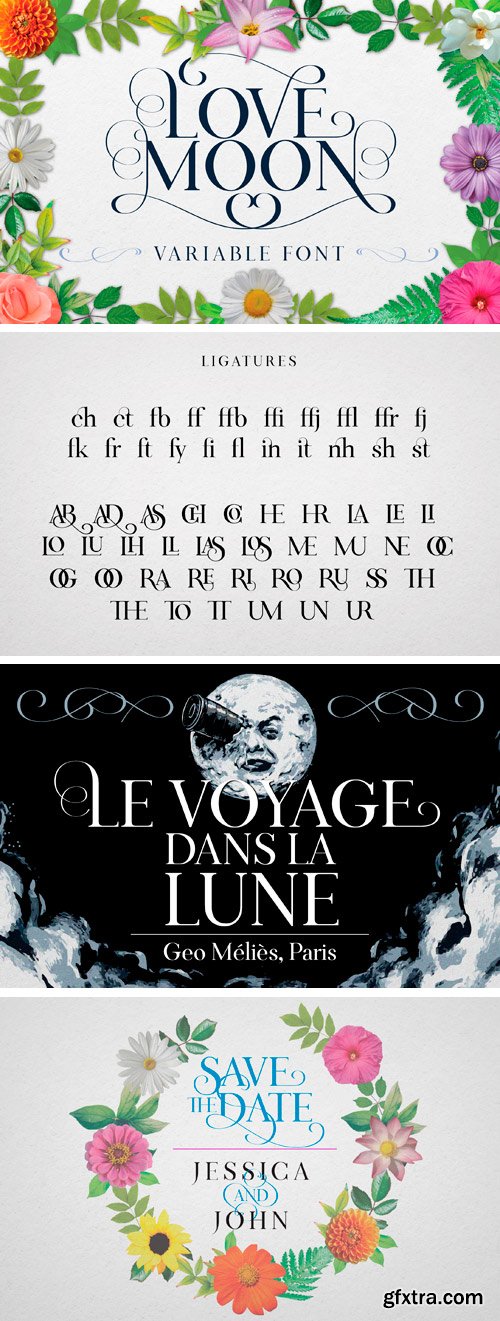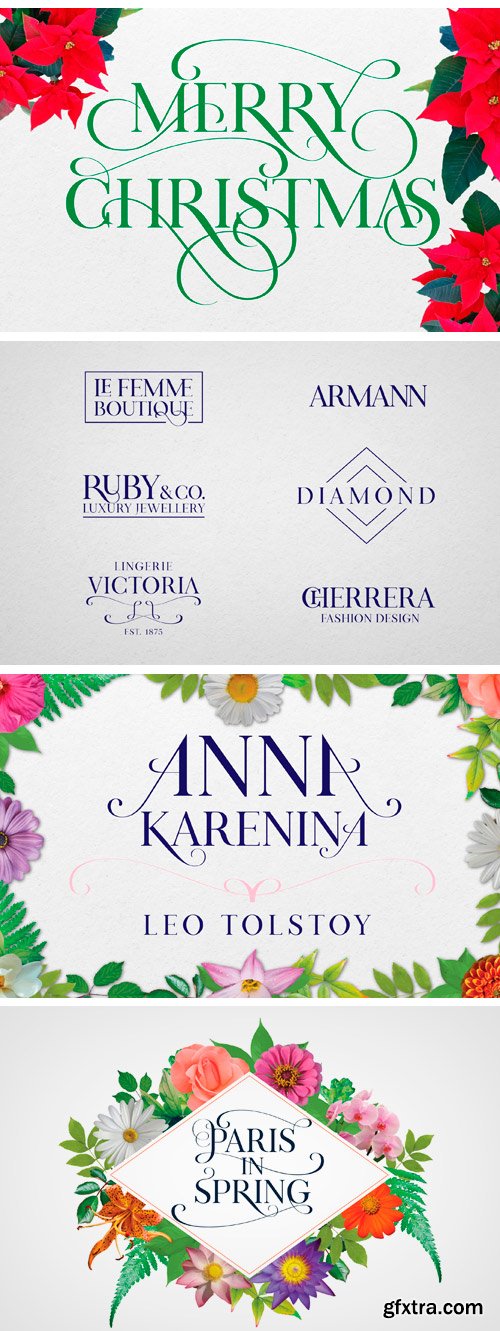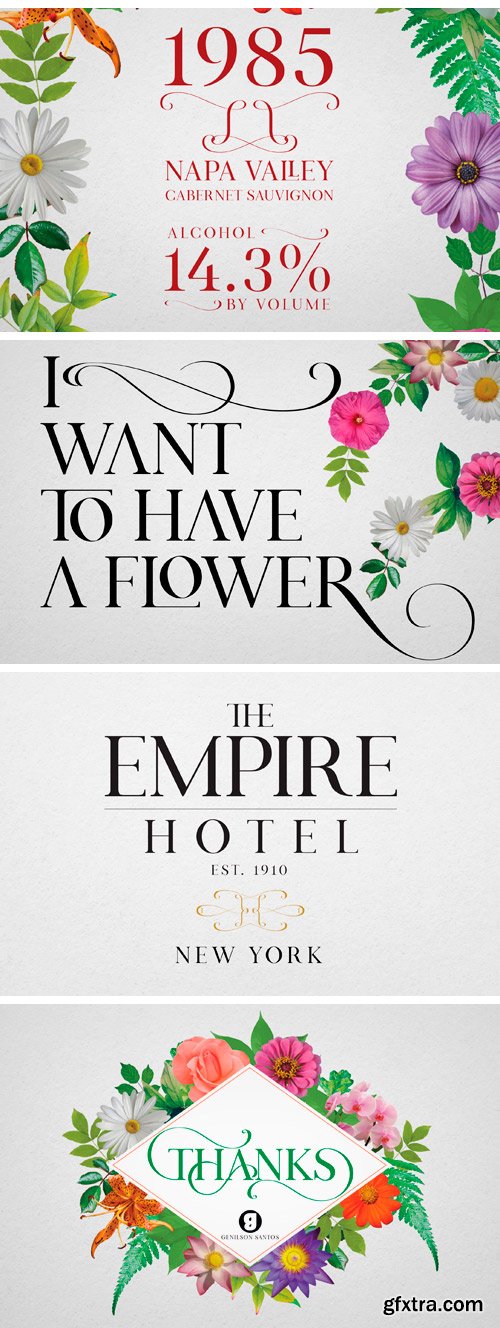
LOVE MOON is a charming serif font inspired by the classic roman fonts. This typeface is great for headlines, invitations, titles, logos etc. It has a large set of alternative uppercase letters with swashes that can be combined to create unique and wonderful designs. In this update, you can choose between 9 combinations of weight and width for most swashes, or make custom adjustments using the new OpenType variable font format*. Love Moon contains uppercase and lowercase letters, numbers, ligatures, accented glyphs, symbols and ornaments.